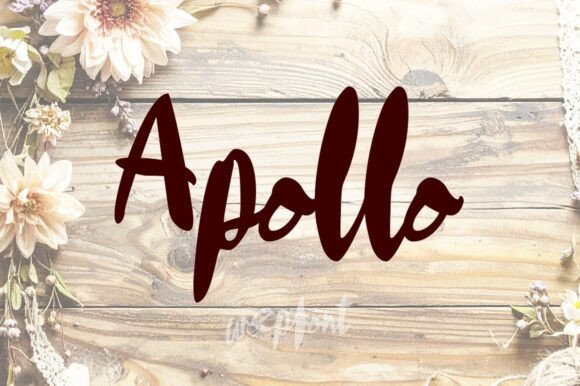
Apollo: The Handcrafted Typeface for Authentic Storytelling
In a digital landscape saturated with uniform, pixel-perfect sans-serifs and rigid geometric fonts, there is a growing desire for something that feels human. We are craving warmth, texture, and the subtle imperfections of the real world. This is where Apollo steps in. It is not merely a collection of letterforms; it is a visual representation of the handcrafted spirit. Designed to exude a natural and slightly rustic elegance, Apollo captures the essence of genuine handwriting while maintaining the structural integrity required for modern communication.
Whether you are a business owner looking to brand artisanal goods or a designer seeking a font that conveys heartfelt emotion, understanding the unique personality of Apollo is essential. This typeface distinguishes itself through its effortless charm, offering an organic aesthetic that bridges the gap between artistic freedom and down-to-earth warmth.
The Soul of Apollo: More Than Just Letters
To truly appreciate Apollo, one must look beyond the technical specifications of stroke width or kerning pairs. The font's primary purpose is to evoke a specific feeling: approachability. Unlike standard script fonts that often feel stiff or overly decorative, Apollo mimics the fluid motion of a pen on paper. It features flowing connections between letters that guide the eye naturally, creating a rhythm that feels conversational rather than formal.
The character of Apollo lies in its organic stroke variations. You will notice that the lines are not perfectly consistent; they breathe. There are subtle thicks and thins that suggest the pressure of a hand holding a tool. These slight imperfections are intentional. They add to the authentic, human touch, ensuring that the text does not feel like it was generated by a machine. Instead, it feels like it was created by a person with passion and intent.
This gentle, inviting personality makes Apollo exceptionally well-suited for projects that require a personal connection. When a user encounters Apollo, they subconsciously register a sense of trust and coziness. It is a versatile choice for creating beautiful and engaging visual communications, but its true power is unlocked when used in contexts that value a bespoke feel.
Key Characteristics That Define Apollo
- Handcrafted Aesthetic: The letterforms are designed to look like they were drawn with care, featuring natural curves and organic shapes.
- Flowing Connections: Ligatures and joins are seamless, allowing words to flow together like a continuous thought.
- Rustic Elegance: It balances sophistication with a grounded, earthy vibe, making it perfect for brands that want to appear premium yet accessible.
- Warmth and Approachability: The open counters and soft edges create a welcoming atmosphere, reducing the "coldness" often associated with digital typography.
These characteristics combine to make Apollo a standout option for anyone aiming to convey a story of authenticity. In a market where consumers are increasingly skeptical of mass-produced content, Apollo offers a visual cue that says, "This was made with care."
Where Apollo Shines: Real-World Applications
The versatility of Apollo allows it to adapt to various industries, provided the goal is to establish a connection based on tradition, nature, or personal touch. Let's explore how this typeface transforms different sectors.
Artisanal Product Branding
For creators of handmade goods, packaging is often the first interaction a customer has with a product. Apollo is ideal for labels on natural cosmetics, craft food items, or small-batch beverages. Imagine a jar of handmade honey or a bottle of cold-pressed olive oil. The label featuring Apollo instantly communicates that the contents are pure, unprocessed, and crafted by hand. The font's rustic elegance complements materials like kraft paper, recycled cardboard, and natural fibers, enhancing the overall tactile experience of the brand.
Cafes and Dining Establishments
The hospitality industry thrives on atmosphere. A cafe menu printed with Apollo can set the tone before a single word is read. Whether it is a cozy coffee shop specializing in single-origin beans or a farm-to-table restaurant, the font adds a layer of intimacy. It suggests that the recipes are family secrets and the ingredients are locally sourced. For businesses aiming for a cozy and heartfelt feel, Apollo helps transform a simple list of prices into an invitation to relax.
Florist Shops and Event Stationery
Floral design is inherently organic, relying on the natural beauty of blooms. Apollo mirrors this aesthetic perfectly. Florists use it for signage, price lists, and branding to reinforce the idea of fresh, living arrangements. Similarly, in the realm of event planning, Apollo is a staple for wedding stationery. From save-the-dates to ceremony programs, the font's flowing script evokes romance and timelessness. It avoids the stiffness of traditional calligraphy while retaining a level of formality appropriate for significant life events.
Digital Content and Blogging
While often associated with print, Apollo has found a home in digital spaces as well. Bloggers and content creators who focus on lifestyle, DIY projects, or creative arts often use Apollo for headers and pull quotes. It breaks up the monotony of standard web fonts, drawing the reader's attention to key points without feeling out of place. When used for emphasis, it acts as a visual anchor that aligns with the narrative voice of the writer.
Evaluating Suitability: Strengths and Considerations
While Apollo is a powerful tool, it is not a universal solution. To use it effectively, creators must understand both its strengths and its limitations. The decision to adopt this typeface should be driven by the specific goals of the project and the values of the audience.
The Strengths of Apollo
The primary strength of Apollo is its ability to convey artistic freedom. It allows brands to express individuality in a way that blocky, industrial fonts cannot. It is particularly effective at building emotional resonance. When a consumer sees Apollo, they are more likely to associate the brand with quality, craftsmanship, and human effort. Furthermore, its legibility is surprisingly robust for a script font, making it usable for short headlines, titles, and body text in smaller sizes, provided the background contrast is high.
Practical Expectations and Limitations
However, the very features that make Apollo charming—its organic variations and subtle imperfections—can pose challenges in certain scenarios. Because it mimics handwriting, it may not be suitable for highly technical documentation, legal contracts, or data-heavy displays where absolute precision and neutrality are required. Additionally, readability can decrease if the font is used for long blocks of text in small sizes or on low-resolution screens. In these cases, pairing Apollo with a clean, neutral sans-serif for body copy is a best practice.
Designers must also consider accessibility. While Apollo is inviting, users with dyslexia or visual impairments might find the flowing connections and variable stroke widths slightly more difficult to parse than standard, uniform typefaces. Always test your designs with diverse audiences to ensure inclusivity.
Guidance for Creators and Business Owners
If you are considering integrating Apollo into your workflow, start by asking yourself what story you want to tell. Is your brand about speed and efficiency? Then Apollo might be too slow and decorative. Is your brand about heritage, nature, and personal care? Then Apollo could be the perfect match.
- Define Your Tone: Ensure the font aligns with your brand voice. Apollo works best for narratives that are warm, personal, and perhaps a bit nostalgic.
- Pair Wisely: Do not let Apollo compete with other decorative elements. Pair it with a simple, clean font for secondary information to maintain hierarchy and clarity.
- Test Across Mediums: Preview your designs in both print and digital formats. The texture of Apollo may render differently depending on the medium, so verify that the "handmade" look translates correctly.
- Respect the Space: Give the letterforms room to breathe. Avoid crowding the text, as the organic nature of the font requires space to show off its unique curves and connections.
Conclusion: Embracing the Human Touch
In an era where automation threatens to homogenize our visual language, fonts like Apollo serve as a reminder of the value of the human hand. It is a typeface that doesn't just communicate information; it communicates feelings. By choosing Apollo, designers and business owners are making a statement about their commitment to quality, authenticity, and connection.
Whether you are labeling a batch of homemade soap, designing a wedding invitation suite, or crafting a menu for a neighborhood bistro, Apollo provides the heartfelt, cozy, and bespoke feel that modern audiences crave. Its flowing connections and organic stroke variations invite users in, promising a personalized experience. As you evaluate your next project, consider whether your message would benefit from a touch of rustic elegance. If the answer is yes, Apollo stands ready to bring your vision to life with effortless charm.